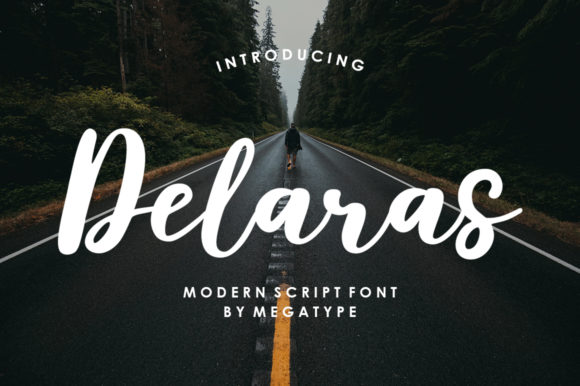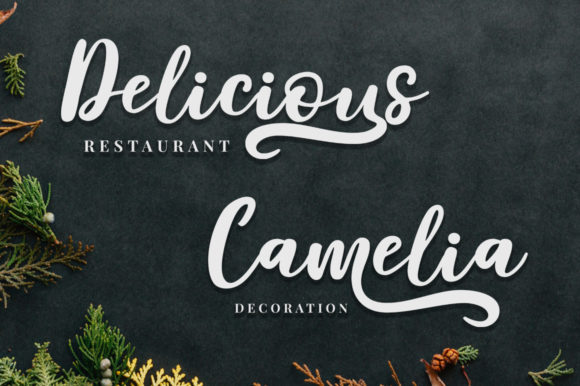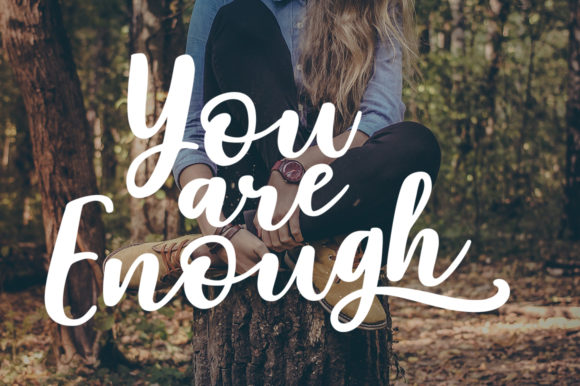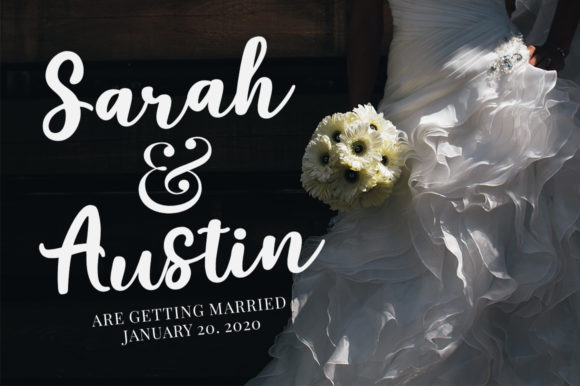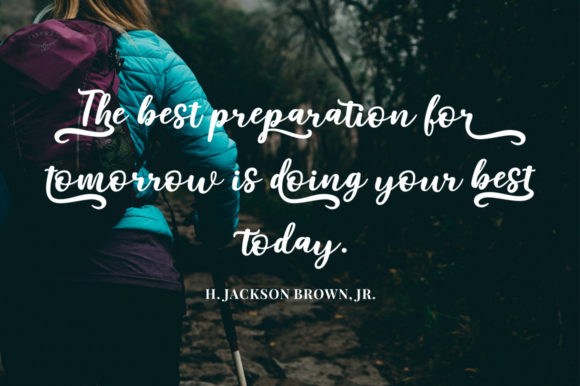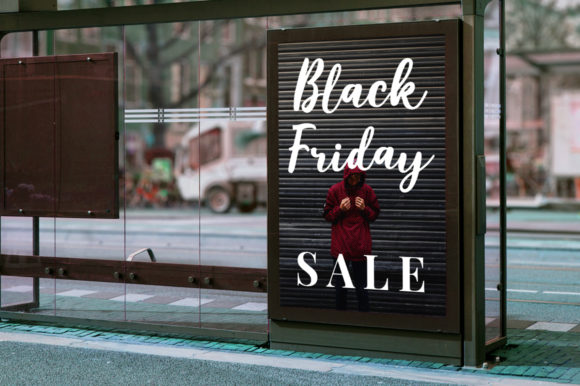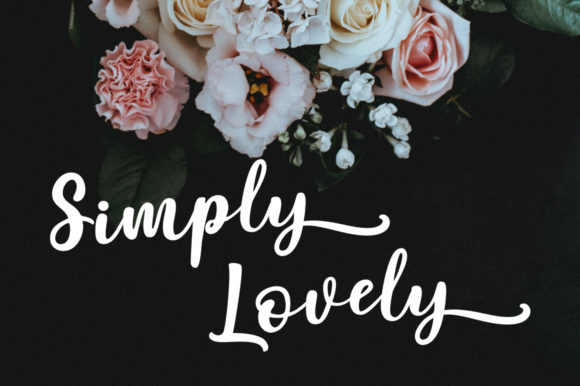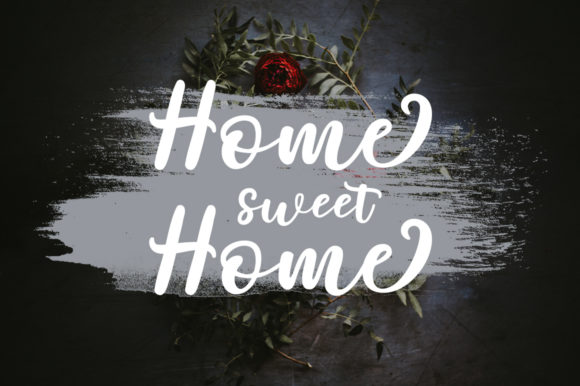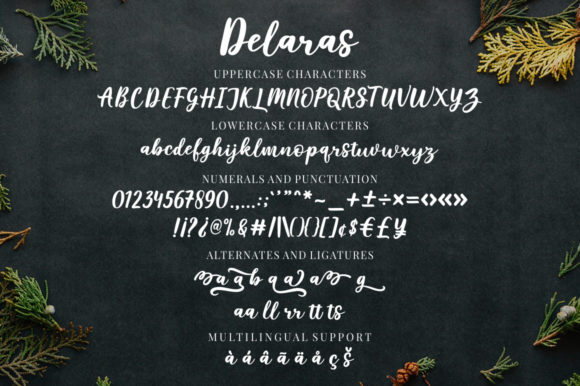
Delaras Font
About Delaras Font
The Delaras is a modern script font created with a brush and ink. It’s bold and has an irregular baseline.
It’s perfect for use in watercolor designs or bold hand lettering styles!